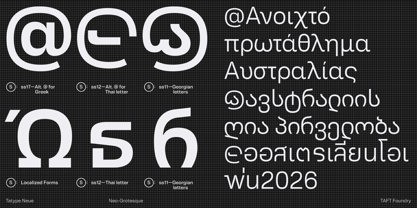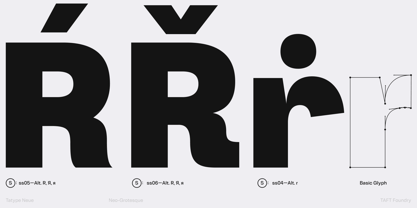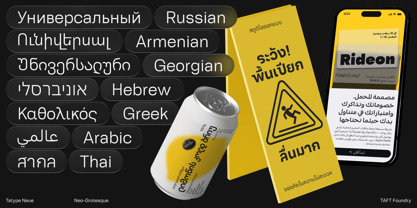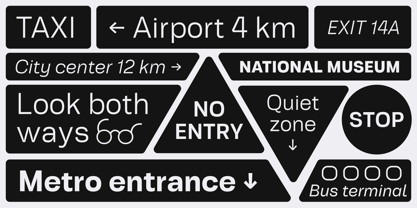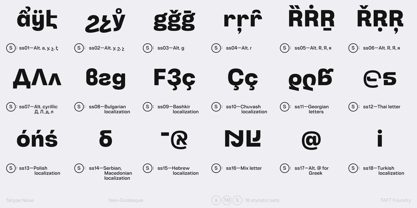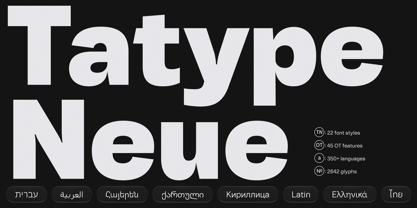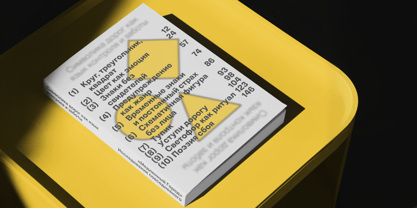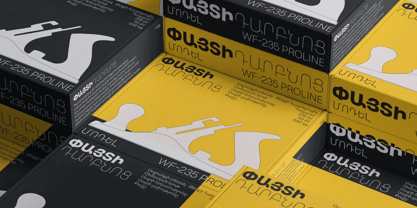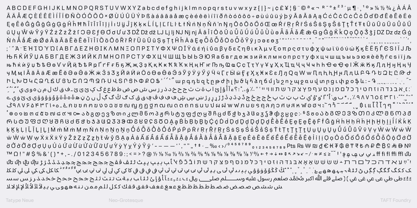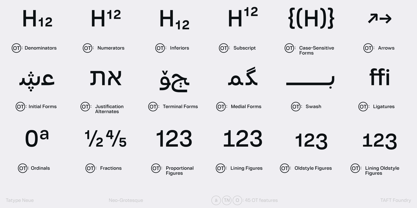
Tatype Neue VF
by Tural Alisoy
The Tatype Neue VF Font Family was designed by Tural Aliyev and published by Tural Alisoy. Tatype Neue VF contains 2 styles and family package options. More about this family
Tatype Neue is the definitive evolution of the original Tatype family, re-engineered to meet the complex demands of contemporary global branding. This versatile sans-serif combines a neutral, highly legible structure with distinct personality, ensuring your message remains consistent across diverse cultures and languages. Designed as a true workhorse, Tatype Neue goes far beyond standard Latin support. It features an extensive character set that includes native-quality support for Cyrillic, Greek, Georgian, Armenian, Arabic, Hebrew, and Thai writing systems. Each script has been crafted with respect to its traditional calligraphic roots while harmonizing perfectly with the font's modern industrial aesthetic. Whether you are designing a multi-lingual user interface, corporate signage, or an editorial layout, Tatype Neue offers the flexibility you need. Its clean lines and open counters ensure excellent readability at small sizes on screen, while its geometric precision makes a bold statement in large headlines. Equipped with robust OpenType features and a wide range of weights, Tatype Neue is the complete typographic toolkit for designers who refuse to compromise on international scope.
Designers: Tural Aliyev
Foundry: Tural Alisoy
TAFT Foundry (Tural Alisoy Fonts) is a US-registered independent type design studio based in Baku, led by Tural Alisoy. Positioned at the intersection of diverse cultures, our geographic and professional roots inspire a unique approach to global communication. TAFT specializes in multi-script engineering and high-quality retail fonts. Our work extends far beyond Latin. We build comprehensive typographic systems that bridge cultures, offering native-quality support for Cyrillic, Greek, Hebrew, Georgian, Armenian, Arabic, and Thai. We don't just draw letters—we research writing systems. From the intricate loops of Thai to the structural nuances of Georgian, we ensure every script is treated with respect and authenticity. Whether developing custom corporate typefaces or extensive retail families, our goal remains the same: to combine technical precision with distinct visual character.